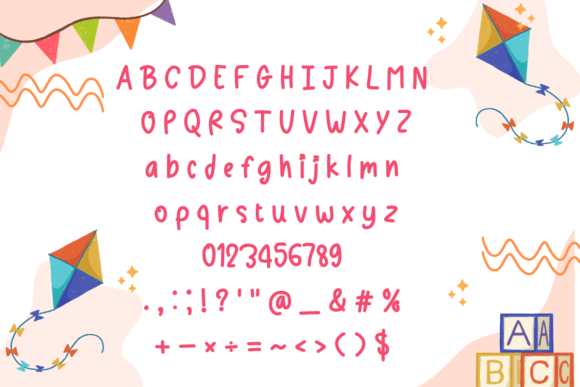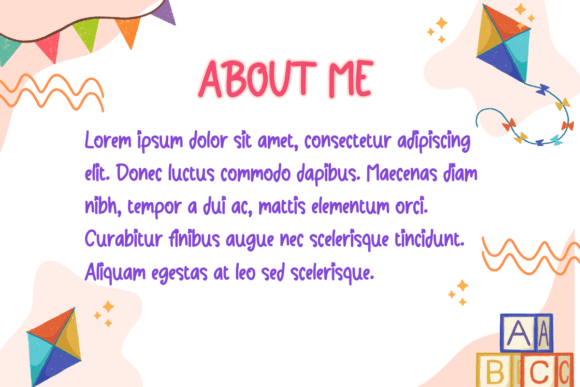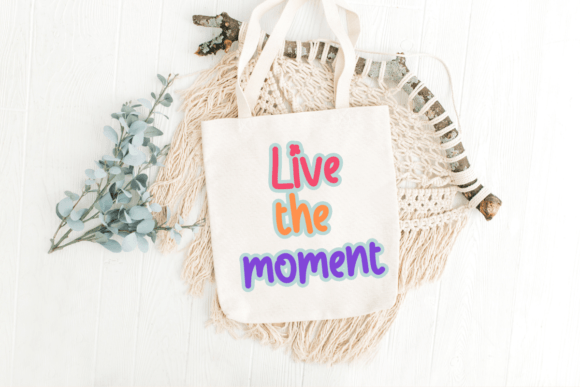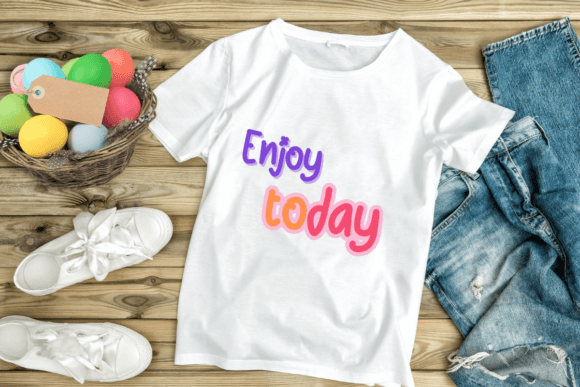
The Finished Font: A Handwritten Gem for Creative Expression
I’ll never forget the moment I stumbled upon the Finished font. I was working on a project for a client who wanted a personal, handwritten touch for their branding. I had spent hours scouring the internet for the perfect font, but nothing seemed quite right. That was until I discovered Finished – a beautiful, handwritten font that perfectly captured the warmth and personality my client was looking for.
A Personal Review of Finished Font
As a designer, I’m always on the lookout for fonts that can help me bring a project to life. Here’s what I love about Finished:
- ✨ Unique character: Finished has a distinct, handwritten feel that’s perfect for adding a personal touch to any project.
- ✅ Highly legible: Despite its handwritten nature, Finished is incredibly easy to read, making it perfect for body text or headings.
- 💫 Versatile: Finished works beautifully in a variety of contexts, from notes and diaries to greeting cards and branding materials.
Of course, no font is perfect, and Finished does have a few quirks:
- 🤔 Limited language support: Finished currently only supports a limited number of languages, so it’s essential to check compatibility before using it for a project.
- ⚠️ No bold weights: Finished only comes in a single weight, which may limit its use in certain design contexts.
One of the standout features of Finished is its support for OpenType features and glyphs. Here are a few tips for getting the most out of these features:
The Story Behind Finished Font
Finished was designed by a talented typographer who wanted to create a font that captured the warmth and personality of handwritten text. With its unique character and highly legible design, Finished has become a favorite among designers and crafters.
| What is the Finished font best used for? | Finished is perfect for taking notes, writing a diary, or making greeting cards. Its unique character and highly legible design make it a great choice for any project that requires a personal touch. |
| Does Finished support OpenType features? | Yes, Finished supports OpenType features, including stylistic alternates and glyphs. |